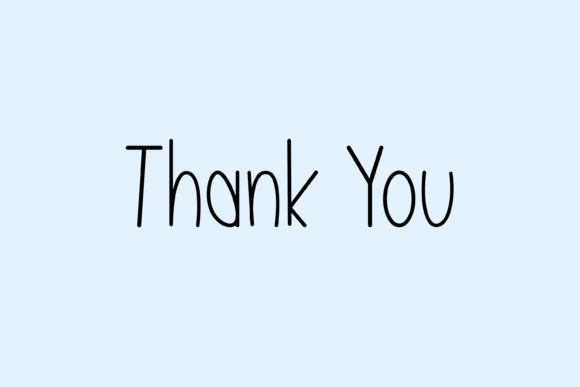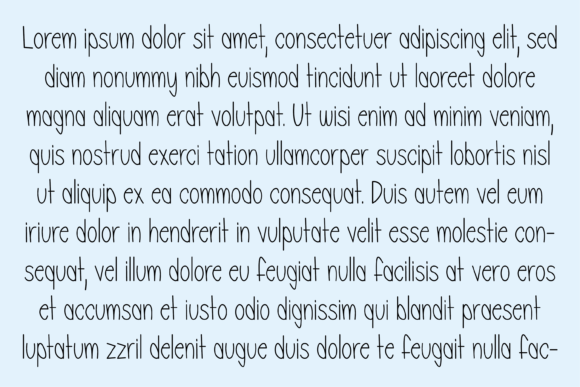
Introduction to Masud Font
Have you ever been stuck on a creative project, trying to find the perfect font to bring your vision to life? That’s where the Masud Font comes in – a simple and friendly handwritten font that’s sure to brighten up your designs. Whether you’re working on a logo, wedding invitation, or advertisement, this font is a valuable addition to your design resource.
As a designer, you understand the importance of a high-quality font that can elevate your creative project. The Masud Font delivers, with its whimsical and quirky charm that’s perfect for a wide range of applications. From print to magazines, this font is a versatile design resource that’s sure to please.
Key Features of Masud Font
- High-quality design resource for creative projects, suitable for various applications
- Designed with attention to detail, ensuring a polished and professional look for any creative project
- Can be scaled to various sizes without compromising on quality, making it ideal for use in different contexts
Honest Review: Masud Font
I recently had the opportunity to use the Masud Font in a creative project, and I was pleasantly surprised by its high quality and versatility. This font is definitely a valuable design resource for anyone looking to add a unique touch to their work.
- ✨ The font’s transparent background makes it easy to use on any background image or color.
- ✨ The high quality of the font ensures crisp and clear text, even at smaller sizes.
- ⚠️ The font is not as extensive as some other font families, with a limited number of styles and weights.
- ⚠️ The font may not be suitable for very large or complex text blocks, as it can become difficult to read.
Overall, I was impressed by the Masud Font and would definitely consider using it again in the future. Its unique design and high quality make it a valuable addition to any designer’s toolkit.
The Masud Font is a high-quality design resource ideal for creative projects. This versatile font offers a unique aesthetic and is perfect for designers looking to add a touch of elegance to their work.
Tips for Getting the Most Out of Masud Font
To get the most out of the Masud Font, consider using it in conjunction with a transparent background to create a cohesive look. You can also experiment with different font sizes and styles to create visual interest.
The Masud Font is ideal for a variety of creative projects, including logos, brochures, and business cards. It’s also perfect for creating eye-catching social media graphics and presentations.